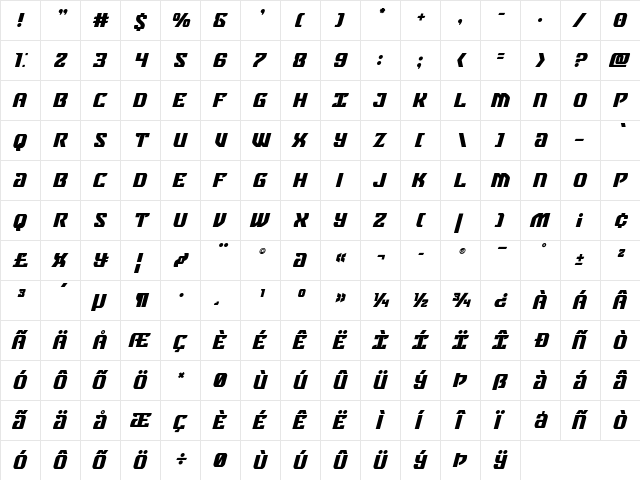
Federal Blue Bold Italic Bold Italic
Design Context for Federal Blue Bold Italic Typeface
Federal Blue Bold Italic is a composed and adaptable typeface that performs quietly and consistently across a wide range of design contexts. Its italic angle brings a sense of urgency and motion to the letterforms. The heavy weight commands attention and anchors typographic hierarchies.
Pro Tip: Use Federal Blue Bold Italic for emphasis, pull quotes, and subheadings where its slanted energy can add rhythm to the layout.